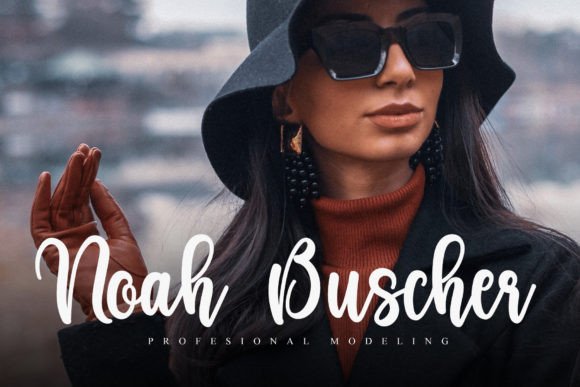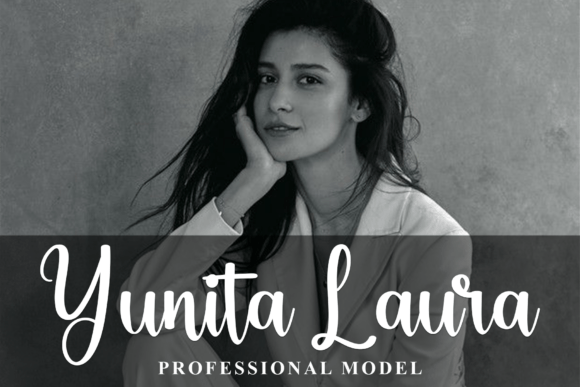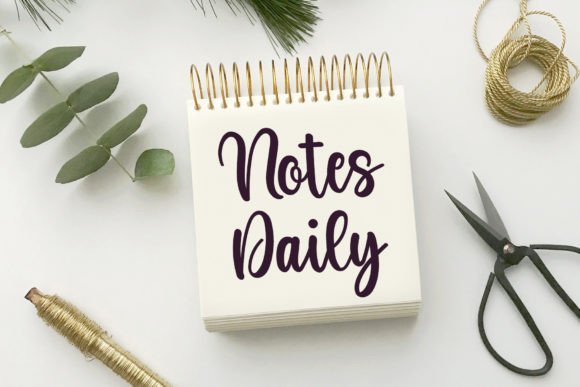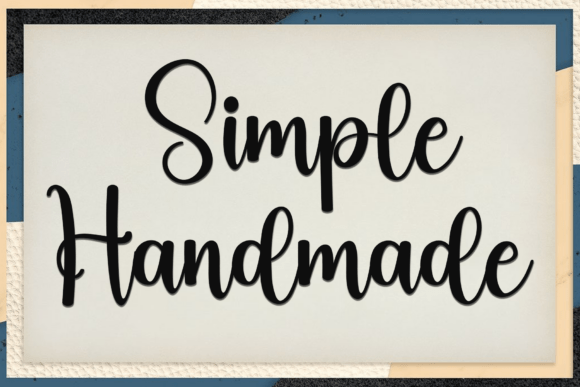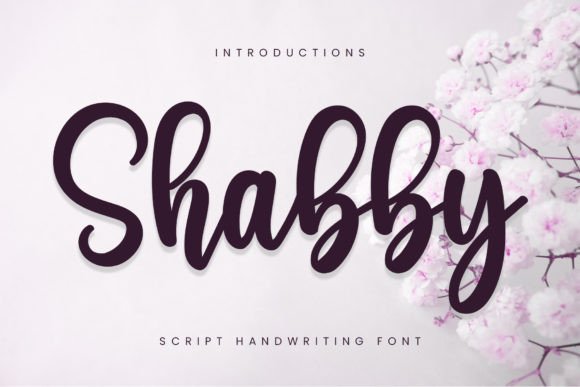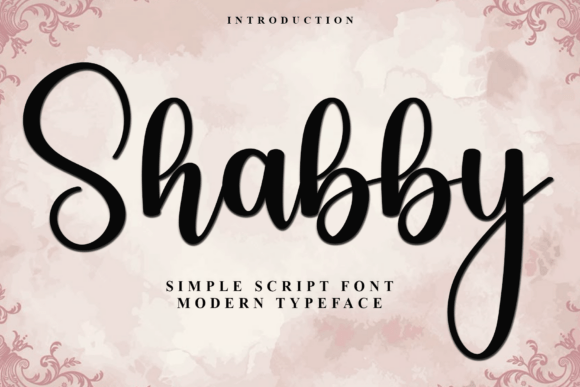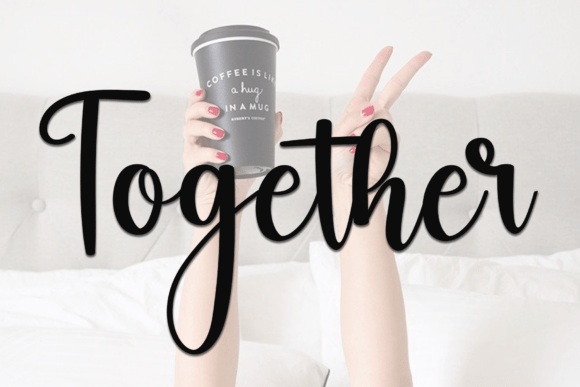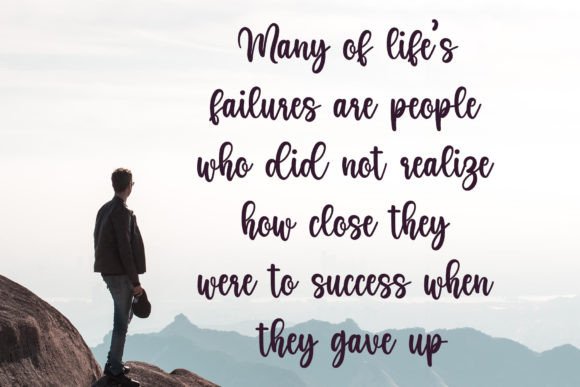
Shabby Font
About the Shabby Font
From logos to headlines, the Shabby Font is the perfect choice for making a lasting impression. Shabby is a casual and creative font that exudes warmth and friendliness. Its round, playful strokes create a relaxed and approachable feel, perfect for personal projects, invitations, and social media graphics. The font’s charming, hand-drawn aesthetic adds a fun and unique touch to any design.